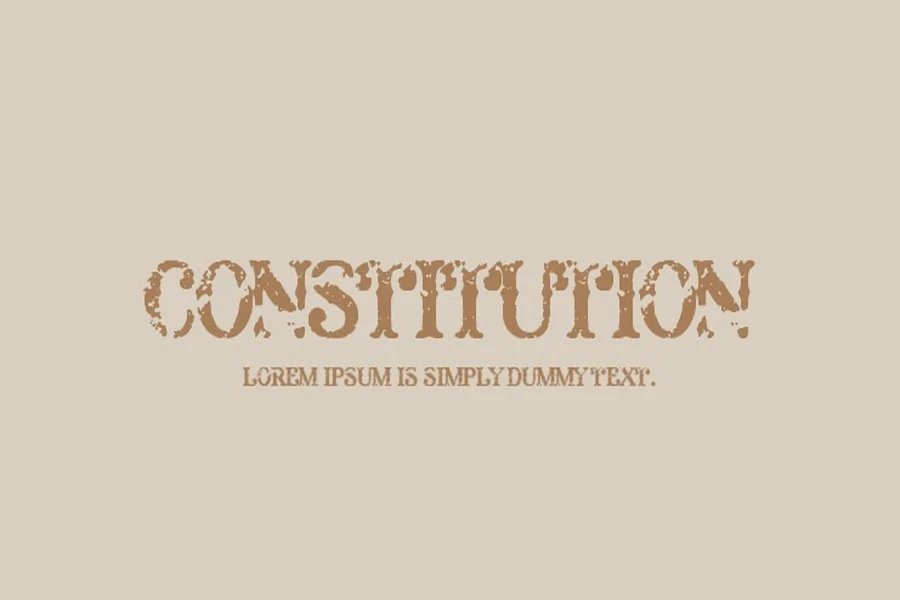
Constitution Font Style Guide For Modern Creative Designs
Constitution Font
Constitution Font is bold and assertive typeface that has the authority and traditional feeling. A designer may use this font in cases where he or she wishes to convey power clarity and trust. The building itself is well balanced and formal, but not obsolete enough with digital applications. Constitution Font is appreciated by so many creators as it is not loud. It is effective with logos branding posters and official material.
This is an energy of a timeless font. It is an indicator of stability and order. It also creates the impression of seriousness that makes messages important. So, it is possible to state that most designers resort to Constitution Font and create a lasting impression.
History and Meaning of Constitution Font
The concept of Constitution Font is based on the traditional typography. It is inspired by historic documents and legal texts of government and education. This association makes the font so named and so powerful.
As time went by the shapes were developed to be smooth and legible on screens. The contemporary adaptation retains the tradition spirit and incorporates it with clarity to use digitally. Constitution Font is not an aggressive font. It is said very calmly authoritatively.
It is branding used by many designers that requires the trust like legal firms schools and civic projects. It is also seen in editorial designs where decoration is less important than clarity.
Where Constitution Font Works Best
Constitution Font is good in most areas of creativity. It suits logos that require to be reliable. It is also applicable in website header and print designs. In the case of posters it provides a sense of gravity and organization.
The font is also applicable in book covers and certificates. It enhances long text where there is a distance between them. It appears business-like in resumes and presentations. Designers like the fact it remains readable even when reduced in size.
Its clean form matches with contemporary sans serif fonts due to its clean appearance. This renders it versatile to traditional and modern designs.
Creative Uses of Constitution Font
Constitution font is usually used by designers in branding projects that require authoritarians. It is effective with law firms universities and public services. It also suits the historical themes and documentary style designs.
It is applicable in the designing of logos when confidence is essential. It works well on banners and signages. It also works on the digital ads that require serious keys.
There is even use of it by some creators in fashion labels and editorial spreads. This is due to the contrast in the style of the tradition and modernity.
How to Use Constitution Font Effectively
In Constantinople Font, maintain the space to be clean and balanced. The layout should not be crowded. Let the letters breathe. This increases readability and effect.
Apply it to headings and titles where power is important. Use lighter fonts in body text. This brings harmony and makes the design amicable.
Color also plays a key role. Dark colors are used to boost authority and light backgrounds to make it readable. Do not be too decorative in effect. The font is shining because of simplicity.
Why Designers Choose Constitution Font
Designers use Constitution Font due to its conveyed trust. It is steady and self-assured. It is applicable in industries and platforms.
The font is flexible on print and digit. Even when it is resized it remains clear. This is its favorite with professional work.
It is also emotionally loaded. It is related to integrity and leadership in the minds of people. That renders it an effective branding and messaging power.
Final Thought
Constitution Font is not just a typeface. It is a statement of clarity of strength and purpose. Its classic outlook renders it applicable both to the modern and traditional projects. This font is reused many times over by designers who appreciate structure and meaning. When it is applied wisely it enhances any design and is really impressive.
Is Constitution Font good for web design?
Yes it works well on websites especially for headers and navigation text
Can Constitution Font be used for logos?
Yes it is a strong choice for logos that need a professional tone
Is Constitution Font suitable for print?
Yes it performs very well in print projects like posters books and certificates
Does Constitution Font work with modern designs?
Yes it blends well with modern layouts when paired with clean supporting fonts